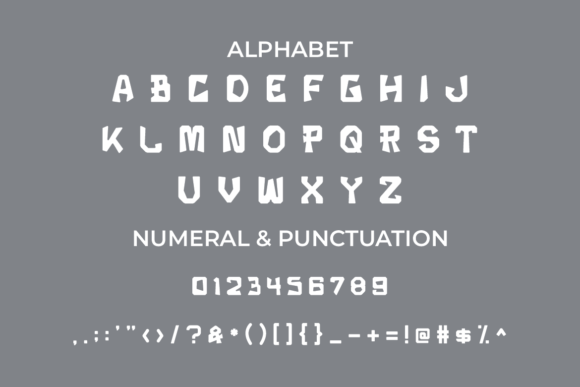
Introducing Abisin Font: The Fun and Unique Display Font You Need
Are you tired of using the same old fonts in your design projects? Look no further! Abisin Font is here to shake things up with its fun and unique display style. This exciting new font is perfect for designers and crafters who want to add a touch of personality to their work. In this article, we’ll take a closer look at Abisin Font and explore how it can elevate your designs.
What is Abisin Font?
Abisin Font is a display font designed to make a statement. Its unique and playful style sets it apart from more traditional fonts, making it perfect for projects that need a bit of flair. Whether you’re working on a logo, a poster, or a social media graphic, Abisin Font is sure to turn heads.
Key Features of Abisin Font
- Unique and Playful Style: Abisin Font has a one-of-a-kind design that’s sure to grab attention.
- Display Font: Abisin Font is specifically designed for display use, making it perfect for headlines, titles, and other prominent text elements.
- Easy to Read: Despite its playful style, Abisin Font is still easy to read, even at smaller sizes.
- Versatile: Abisin Font can be used in a wide range of design projects, from digital graphics to print materials.
Why Use Abisin Font?
So why should you choose Abisin Font for your next design project? Here are just a few reasons:
- Add Personality to Your Designs: Abisin Font is the perfect way to add a touch of personality to your designs and make them stand out.
- Stand Out from the Crowd: With Abisin Font, you can create designs that are truly unique and eye-catching.
Design Tips and Tricks
Here are a few design tips and tricks to help you get the most out of Abisin Font:
- Use it as a Headline Font: Abisin Font is perfect for headlines and titles. Use it to grab attention and draw the reader in.
- Experiment with Colors: Abisin Font looks great in a wide range of colors. Experiment with different hues and shades to find the perfect look for your design.
- Pair it with Other Fonts: Abisin Font pairs well with a wide range of other fonts. Try pairing it with a simple sans-serif font for a bold and modern look.
Abisin is a fun and unique display font. Add it confidently to your projects and you will love the results! Its unique and playful style makes it perfect for a wide range of design projects, from logos and posters to social media graphics and more. So go ahead, give Abisin Font a try, and see the difference it can make in your designs!